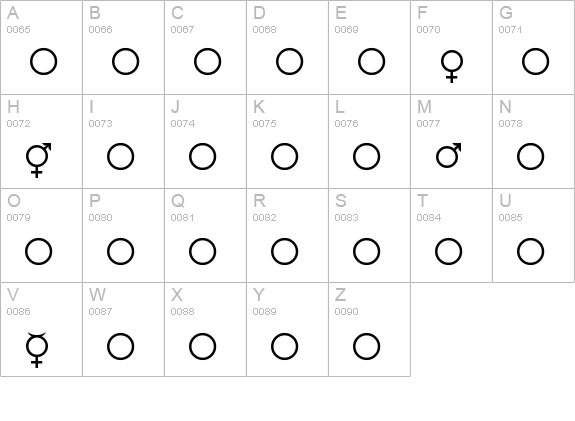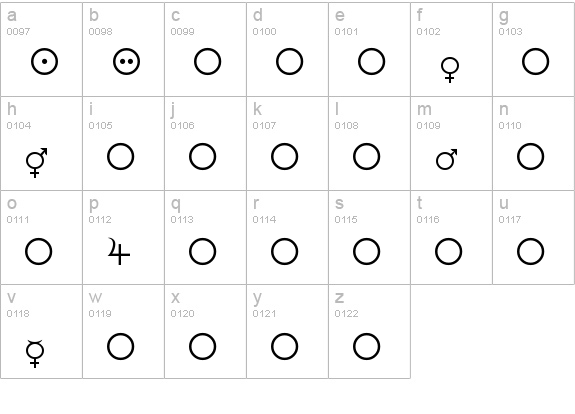
Female and Male Symbols Font Details
The Female and Male Symbols font is a beautifully crafted set of gender symbols representing femininity and masculinity. This unique font offers a stylish and elegant design that can add a touch of sophistication to any project. With these symbols, you can easily convey gender-related concepts in a visually appealing way. Best of all, this Female and Male Symbols font is available for free download at FontsMarket.com. You can easily access and use this font in your digital creations without any cost. Whether you are working on a graphic design project, a presentation, or simply want to add a creative touch to your documents, this font is a great choice. Embrace the power of gender symbolism with the Female and Male Symbols font, and elevate your designs with its distinctive and eye-catching characters. Download it for free today at FontsMarket.com and let your creativity shine!